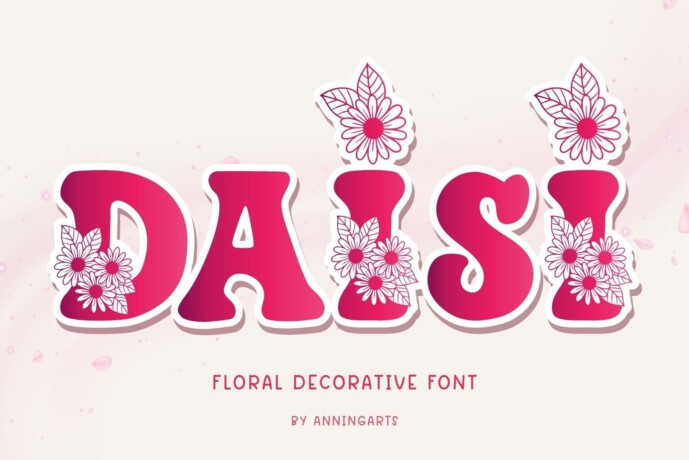
Daisi Font
Designer: AnningArts
Daisi is a bold and decorative display font inspired by the charm of daisy flowers and the cheerful vibes of spring. Each letter is beautifully adorned with hand-drawn floral elements, making it perfect for wedding invitations, spring-themed branding, retro-inspired projects, and playful packaging designs.